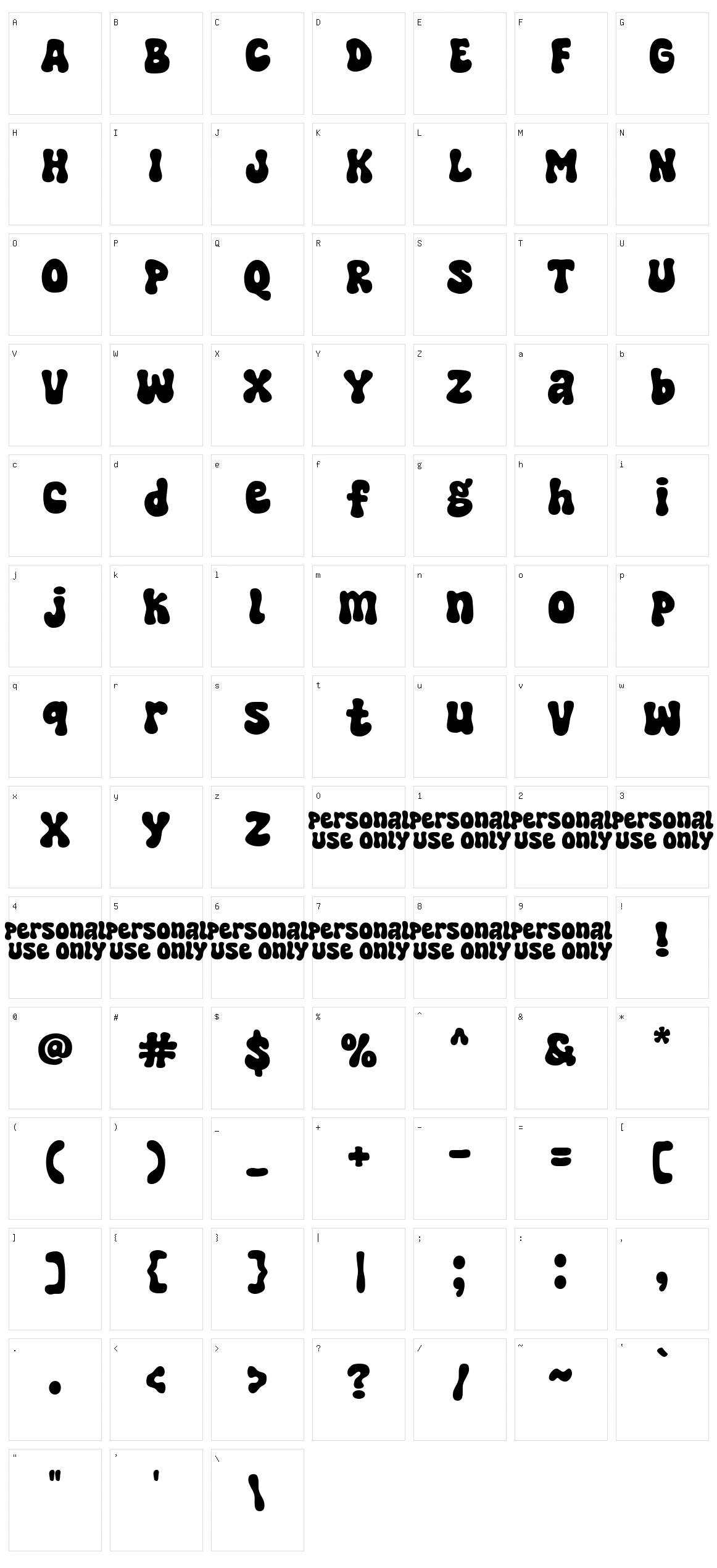
Super Cool is a quirky, groovy, fun, and cool display font. The font features thick, rounded letters with a playful twist. The letters are slightly uneven, giving the font a unique and handcrafted look.